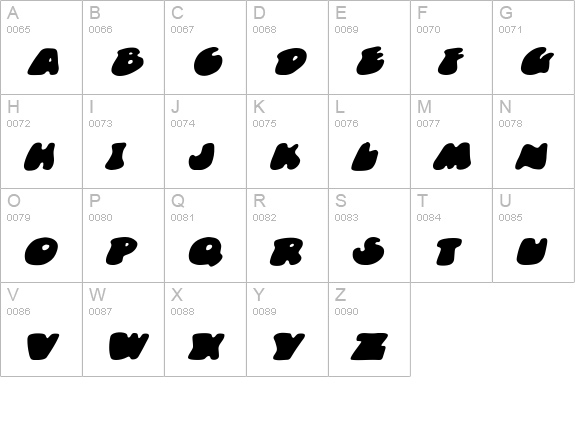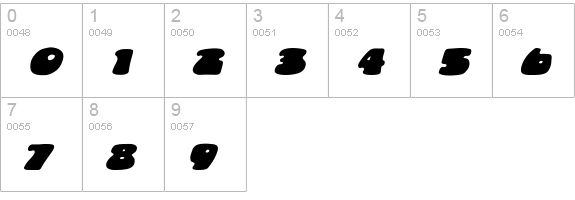
DunceCap BB Italic Font Details
DunceCap BB Italic is a distinctive, italic variant in the DunceCap typeface family \xE2\x80\x94 well suited to design and typography projects.
DunceCap BB Italic font is a playful and quirky typeface that exudes a sense of whimsy and charm. Its slanted letters give a dynamic and energetic feel to any text, making it perfect for projects that require a touch of creativity and fun. The unique design of DunceCap BB Italic font makes it stand out from the crowd, adding a distinctive flair to any design. Best of all, DunceCap BB Italic font is available for free download at FontsMarket.com. This means you can easily access this delightful font and use it in your projects without any cost. Whether you're working on a poster, website, or any other creative endeavor, DunceCap BB Italic font is sure to add a playful and whimsical touch to your work. Download it today and let your creativity shine with this charming and free font!